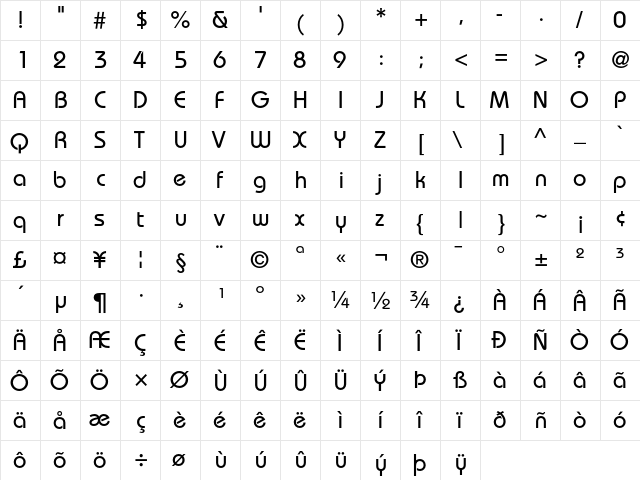
Bauhaus Regular
Design Context for Bauhaus Typeface
Bauhaus is a composed and adaptable typeface that performs quietly and consistently across a wide range of design contexts.
Pro Tip: Pair Bauhaus with a font of contrasting weight or personality to build a more expressive typographic hierarchy.